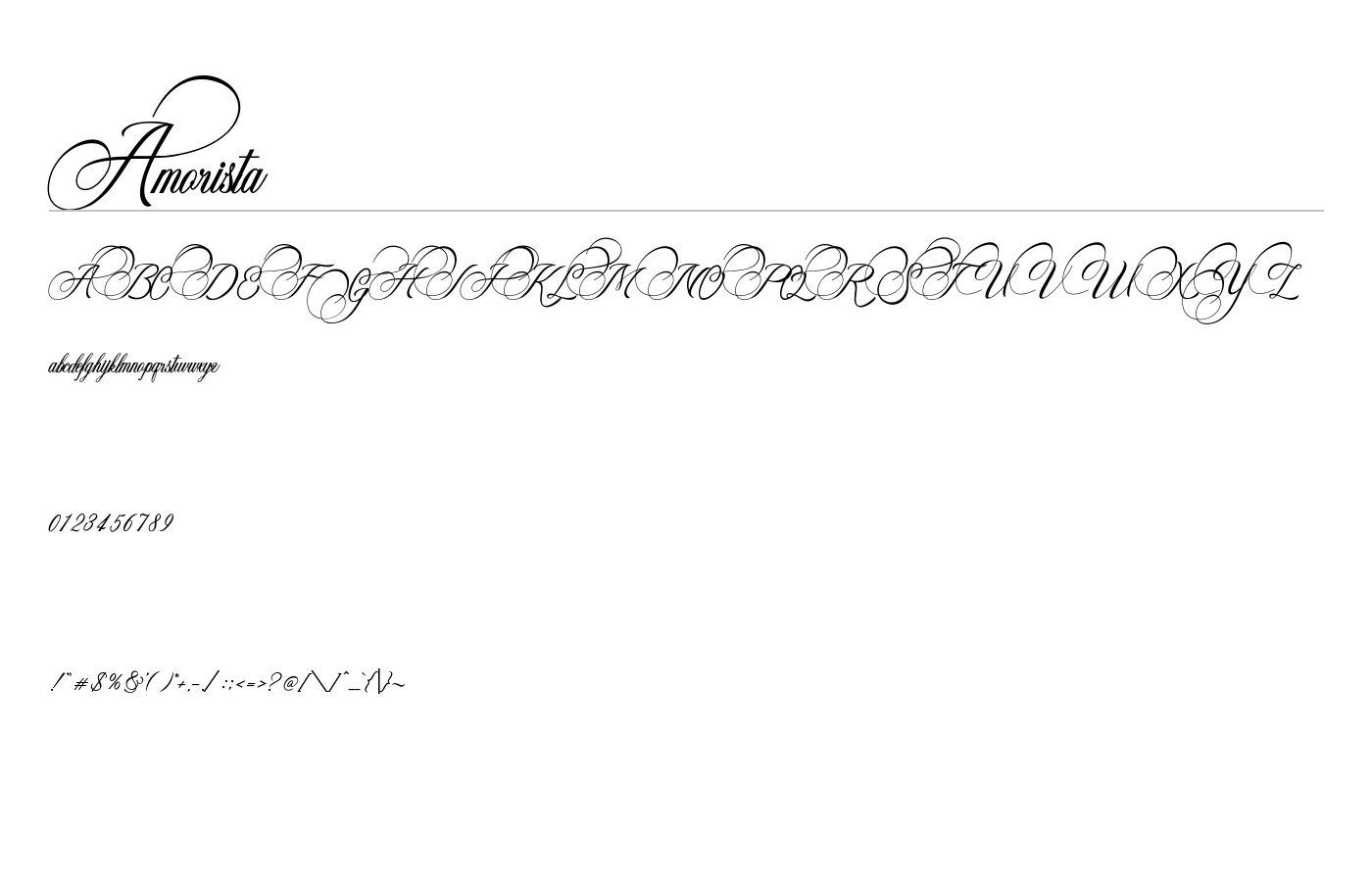
Amorista is an elegant, highly decorative script font characterized by its intricate, flowing swashes and delicate strokes that create a luxurious and romantic feel. Its tall, slender letterforms and graceful curves make it perfect for wedding invitations, upscale branding, and sophisticated editorial use where a refined, artistic touch is desired. This font shines in display settings, adding a sense of classic beauty and charm to headlines, logos, and packaging that seek a timeless, graceful impression.
Amorista Font